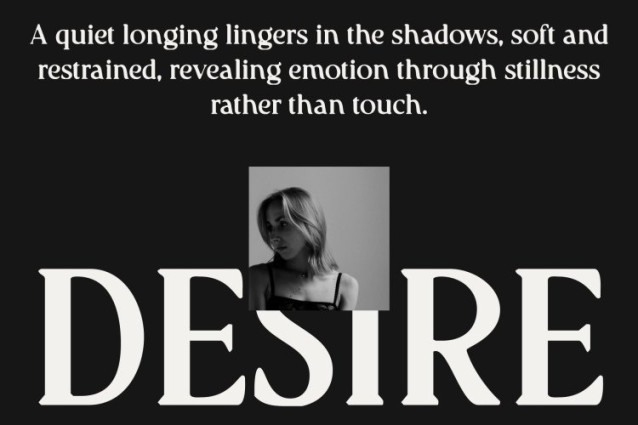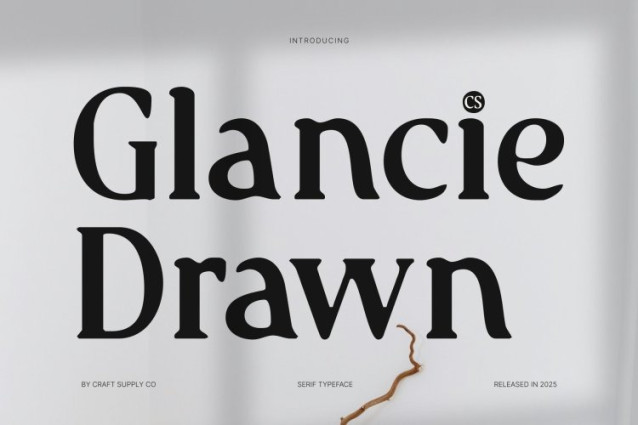
CS Glancie Drawn Font
CS Glancie Drawn Font This is a modern serif font that balances bold elegance with contemporary professionalism. Its confident serifs and refined proportions create a strong, stylish presence, while the drawn effect introduces a subtle handcrafted texture that adds warmth and individuality. This combination results in a typeface that feels polished yet personal timeless in structure, modern in expression.
Elegant Details with Confident Personality
The bold serif construction gives the font authority and structure, while smooth curves and carefully considered angles maintain a graceful flow. The hand-drawn texture softens the precision just enough, adding character and depth without compromising clarity. This harmony creates a confident, luxurious tone that feels expressive yet controlled.
Perfect for Luxury and High-End Branding
This font is designed for premium branding, editorial layouts, and sophisticated visual identities. It performs beautifully in logos, packaging, fashion campaigns, and magazine headlines, where elegance and distinction are essential. The drawn detail enhances exclusivity, helping brands feel more human, artistic, and memorable.
A Typeface with Presence and Soul
More than a classic modern serif, this font carries a sense of craftsmanship and personality. Its blend of bold structure, refined elegance, and natural texture makes it an ideal choice for designers who seek clarity, confidence, and a refined handwritten touch in high-end visual communication.